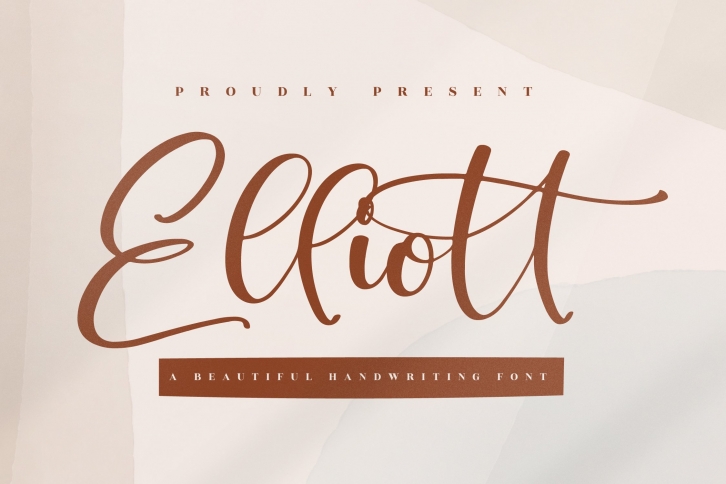
Elliott - Beautiful Handwriting Font , from Glorytype Studio, suitable for any projects such as: logos, branding projects, homeware designs, product packaging, mugs, quotes, posters, shopping bags, t-shirts, book covers, name card, invitation cards, greeting cards, label, photography, watermark, special events, and all your other lovely projects that need a beautiful script taste.